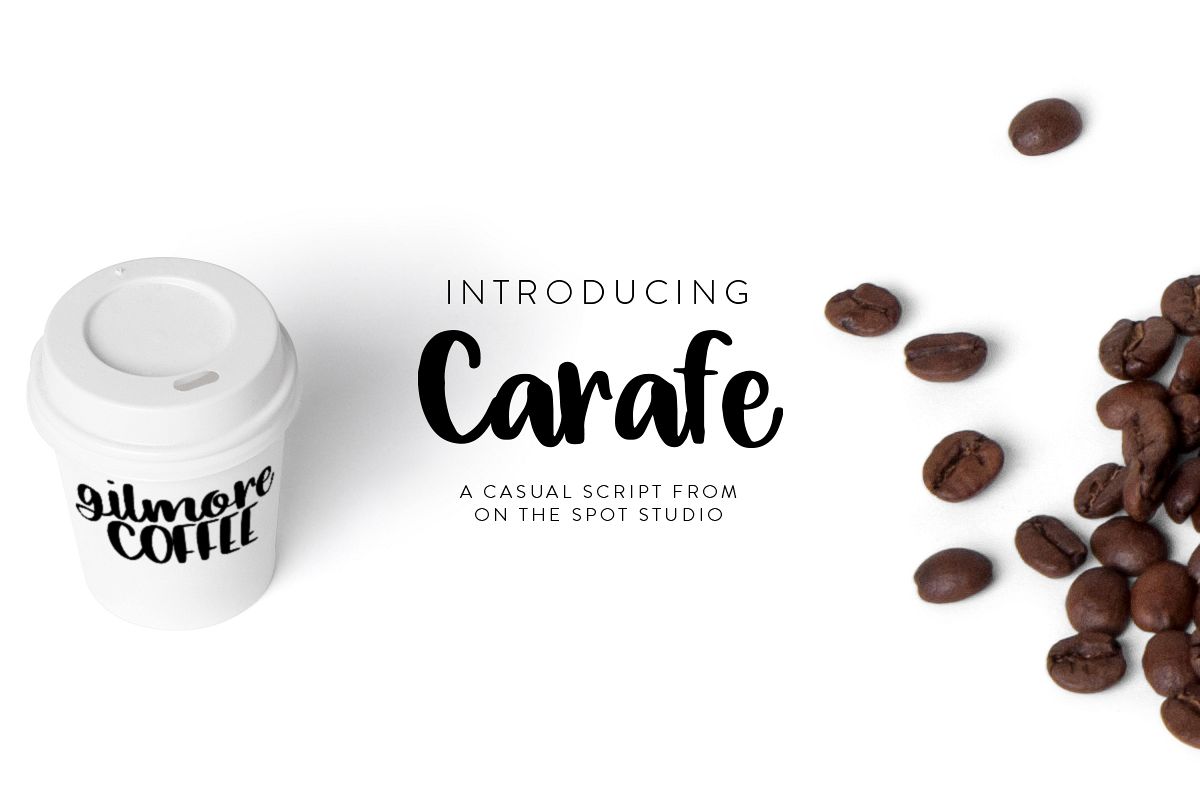
Carafe
Carafe Casual Script is a fun simple script great for branding, crafting and so much more! ? Commercial Use OK! Please do NOT resell, redistribute, or create SVG alphabets of this font. ? Includes OTF and TTF in zipped download file ?
Carafe
By On The Spot Studio